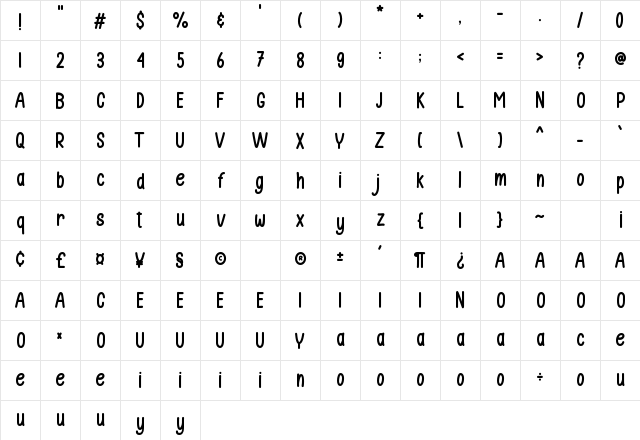
Agnes Regular Free Font
Agnes Regular
Foundry: Graphix Line Studio
Designer: Aldi Raya Pradipta
Agnes Family
Agnes Regular
Design Context for Agnes
Agnes is a composed and adaptable typeface that performs quietly and consistently across a wide range of design contexts.